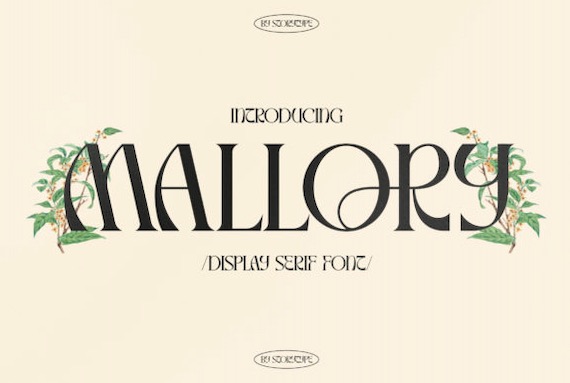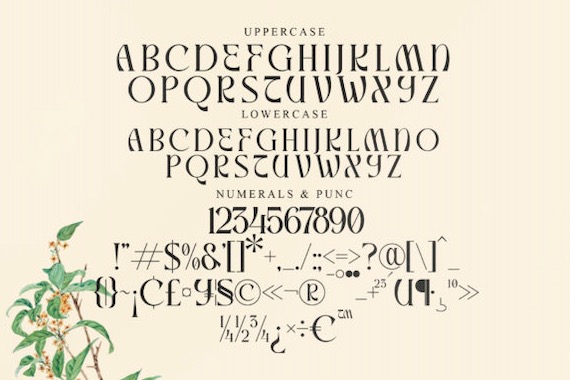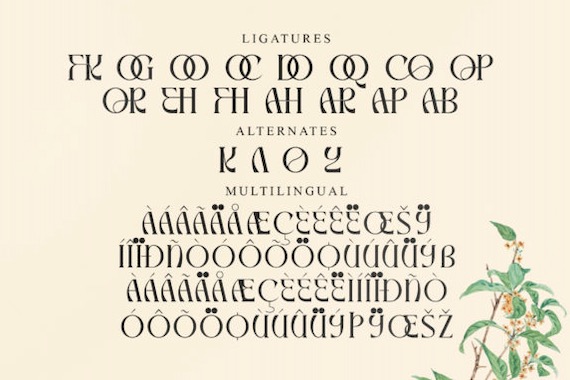
Mallory is a luxury and cool serif display font that was created and released by Storytype Studio along with its own unique style & modern look. This typeface is perfect for an elegant & luxury logo, book or movie title design, fashion brand, magazine, clothes, lettering, quotes, and so much more.
Mallory Serif Font